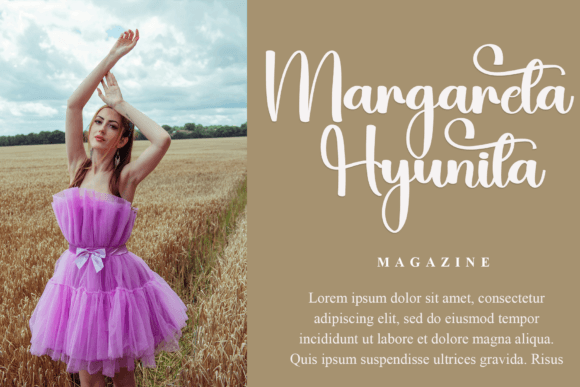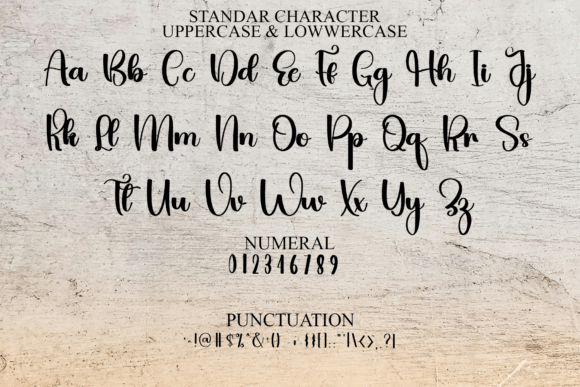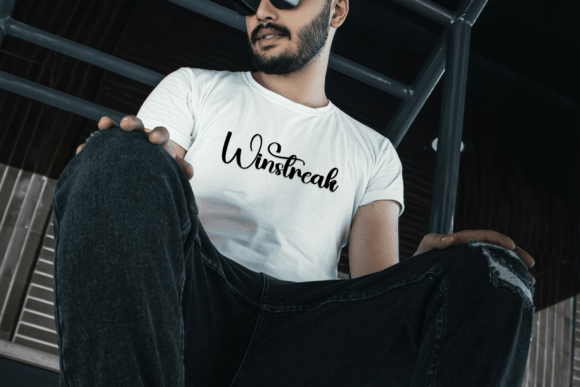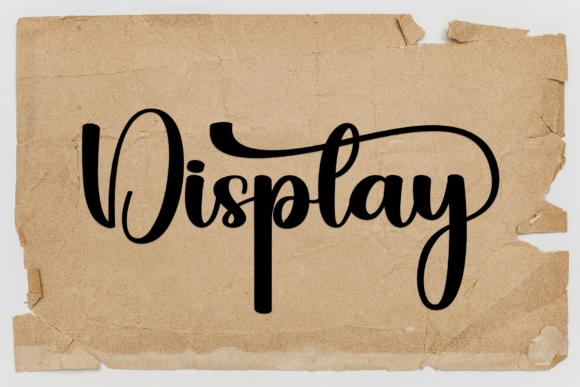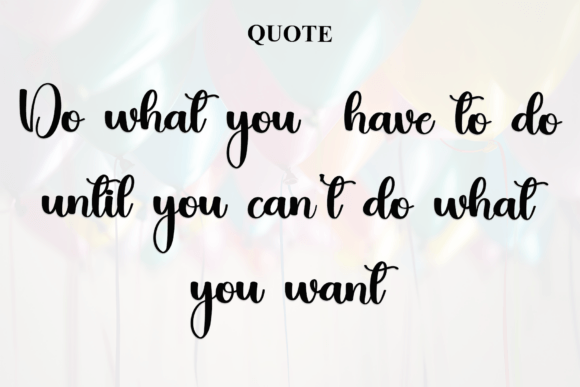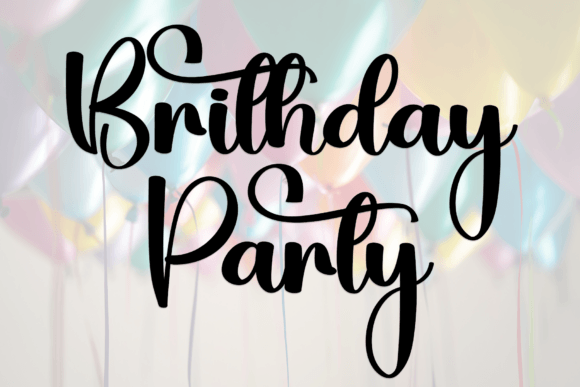
Discover the Charm of Chasing Party Font: Elevate Your Designs with a Timeless Handwritten Style
Are you on the hunt for a font that adds a touch of elegance and whimsy to your designs? Look no further than the Chasing Party font, a lovely and timeless handwritten font that is sure to capture the hearts of designers and crafters alike. With its unique and beautiful touch, this font is the perfect choice for creating eye-catching logos, branding, and quotes that stand out from the crowd.
The Unique Characteristics of Chasing Party Font
What sets Chasing Party font apart from other fonts is its distinctive handwritten style, which exudes a sense of warmth and personality. Every letter has a unique and beautiful touch, which will make your design come alive! The font’s flowing curves and subtle imperfections give it a humanized feel that is both charming and engaging.
One of the key features of Chasing Party font is its PUA (Private Use Area) encoding, which allows you to access all of the amazing glyphs and ligatures with ease. This means that you can effortlessly incorporate special characters, swashes, and other embellishments into your designs, giving them an extra layer of sophistication and flair.
Why Choose Chasing Party Font for Your Designs?
So, why should you choose Chasing Party font for your designs? Here are just a few compelling reasons:
• Elegant and Timeless Style: Chasing Party font boasts a classic, timeless style that will never go out of fashion. Its elegant curves and flowing lines make it perfect for creating sophisticated designs that exude refinement and poise.
• Versatility: Whether you’re designing a logo, branding materials, or quotes, Chasing Party font is the perfect choice. Its versatility and flexibility make it suitable for a wide range of design applications.
• Easy to Use: With its PUA encoding, Chasing Party font is easy to use, even for designers who are new to working with special characters and glyphs. Simply access the font’s features using your design software, and you’re good to go!
• Unique and Eye-Catching: Let’s face it – with Chasing Party font, your designs will stand out from the crowd! Its unique and beautiful touch ensures that your designs will be noticed and remembered.
Chasing Party font is a dream come true for designers and crafters who are looking for a font that will elevate their work to the next level. Whether you’re a professional designer or a hobbyist crafter, this font is sure to inspire your creativity and help you achieve your design goals.
From logo design and branding to crafting and scrapbooking, Chasing Party font is the perfect choice for anyone who wants to add a touch of elegance and whimsy to their work. Its versatility and ease of use make it accessible to designers of all skill levels, from beginners to seasoned pros.
Tips for Getting the Most Out of Chasing Party Font
To get the most out of Chasing Party font, here are a few tips to keep in mind:
• Experiment with Different Sizes and Colors: Don’t be afraid to experiment with different sizes and colors to find the perfect combination for your design.
• Mix and Match with Other Fonts: Chasing Party font pairs beautifully with other fonts, so don’t be afraid to mix and match to create a unique and eye-catching design.
• Use the Font’s Special Features: Take advantage of the font’s PUA encoding to access special characters, swashes, and other embellishments that will add an extra layer of sophistication to your designs.
In conclusion, Chasing Party font is a timeless and elegant handwritten font that is sure to capture the hearts of designers and crafters alike. With its unique and beautiful touch, PUA encoding, and versatility, this font is the perfect choice for creating eye-catching logos, branding, and quotes that stand out from the crowd.